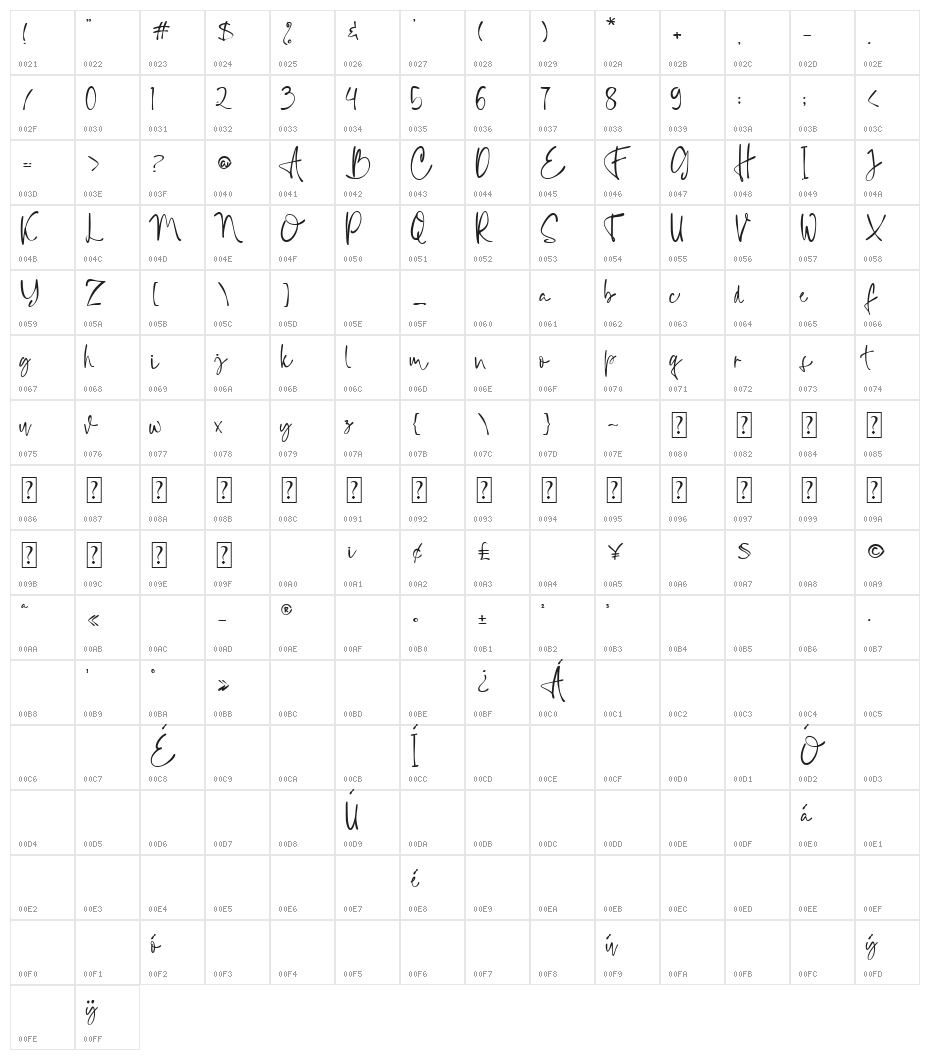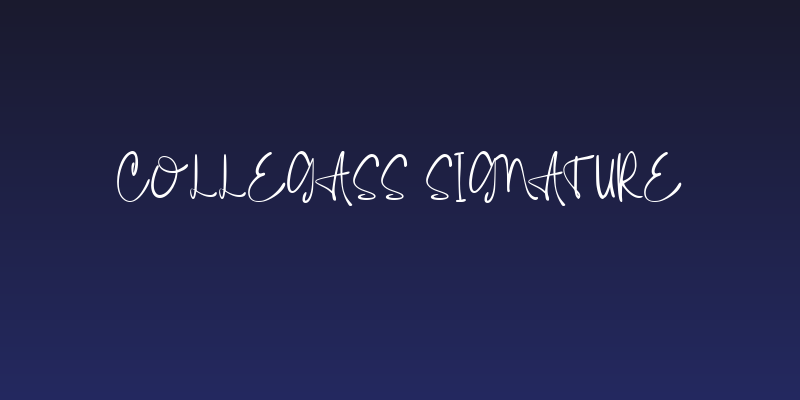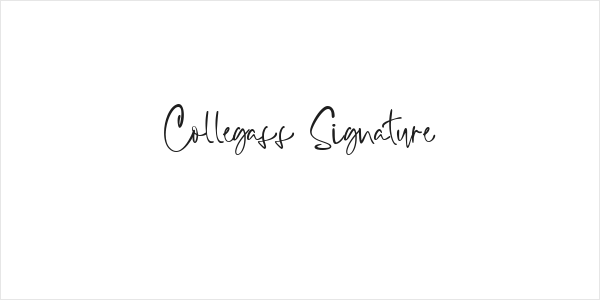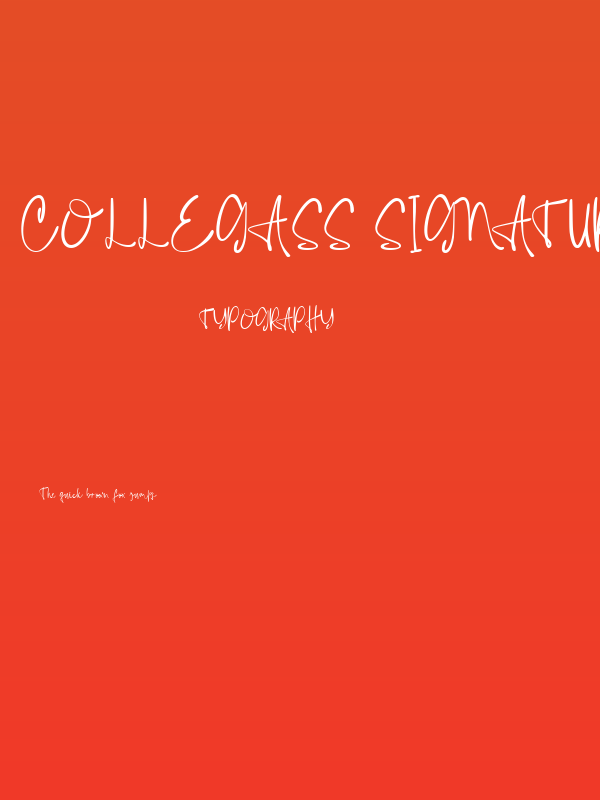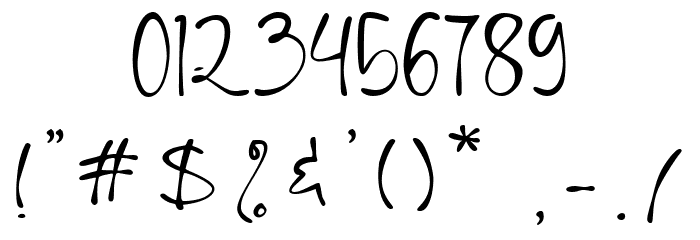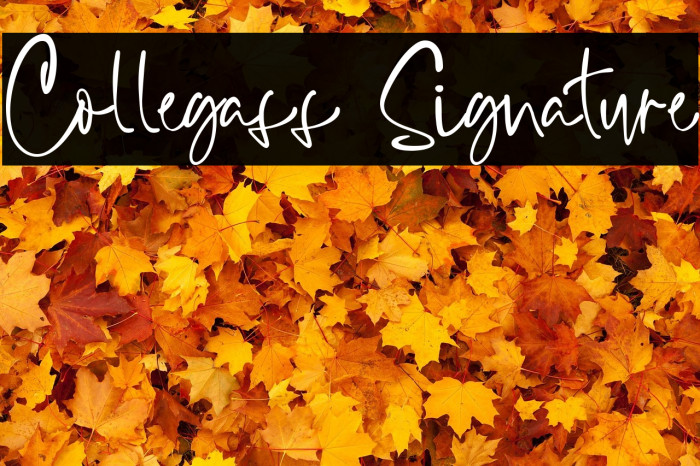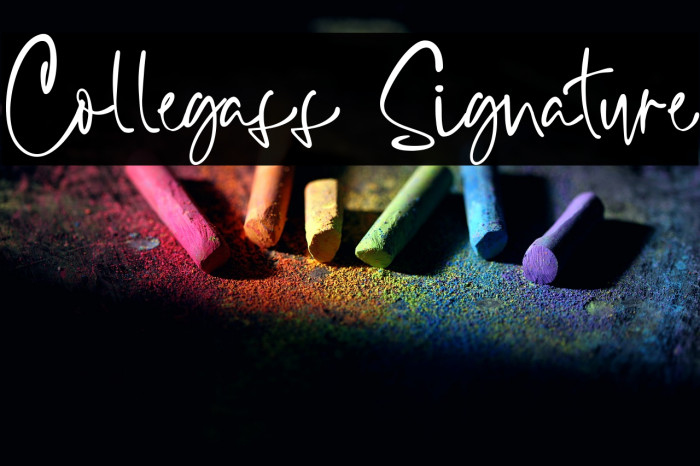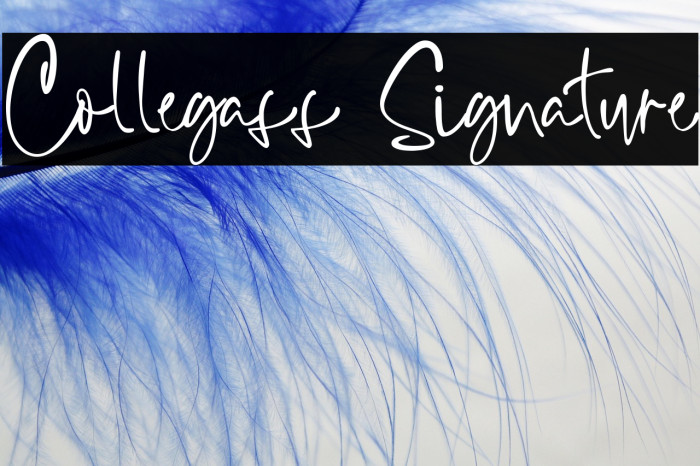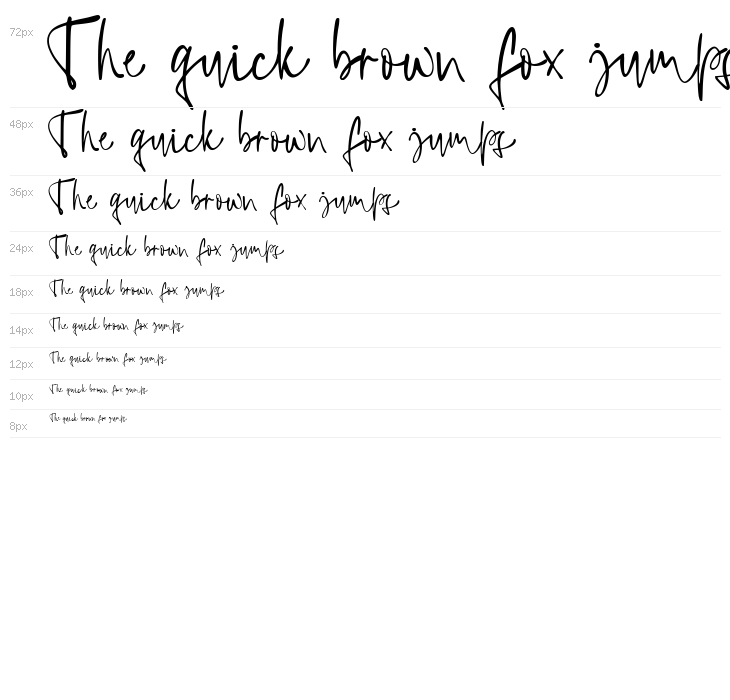
Collegass Signature Font
Collegass Signature Description
This font exudes a casual, handwritten style with a touch of elegance. The letters are fluid and connected, mimicking the natural flow of cursive handwriting. The uppercase letters are bold and slightly larger, providing a nice contrast to the more delicate lowercase letters. The numbers maintain the same handwritten aesthetic, ensuring consistency across all characters. Special characters are creatively integrated, adding to the font's versatility. The overall appearance is both playful and sophisticated, making it suitable for a variety of design projects.
| Use Case | Logos, Invitations, Social Media |
| Proposed Projects | Ideal for wedding invitations, personal branding, greeting cards, and social media graphics. |